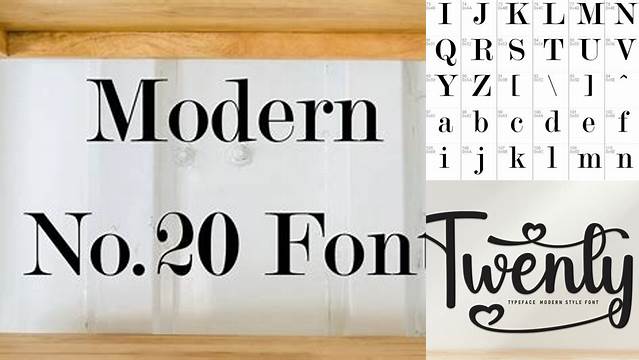
Modern Twenty Font: Free Download & Usage Guide
Hey guys! Ever stumbled upon a font that just screams modern and chic? Well, let me introduce you to the Modern Twenty Font Family. This font is a total game-changer for designers, creatives, and anyone who wants their projects to look absolutely stunning. In this guide, we're diving deep into everything you need to know about the Modern Twenty Font Family, including where to snag it for free, how to use it, and why it's the perfect addition to your font library. So, buckle up and let's get started!
What Makes Modern Twenty Font Family Special?
The Modern Twenty Font Family isn't just another font; it's a versatile collection that can elevate any design. Its clean lines and contemporary feel make it ideal for a wide range of applications, from branding and logos to websites and print materials. The font family typically includes various weights and styles, giving you the flexibility to create visually appealing and cohesive designs. Seriously, the subtle nuances in each weight—from light and regular to bold and italic—provide a spectrum of options to match your project’s tone and purpose. This font family is like the Swiss Army knife of typography – always ready to deliver!
Using Modern Twenty Font Family in Graphic Design Projects
The Modern Twenty Font Family is a fantastic choice for a wide array of graphic design projects. Its clean, modern aesthetic makes it perfect for logos, branding materials, and website design. When using Modern Twenty in your designs, consider its different weights and styles to create visual hierarchy. Use the bold weight for headings to grab attention, and the regular weight for body text to ensure readability. Experiment with different font sizes and spacing to achieve the desired effect. Pair Modern Twenty with complementary fonts to add depth and interest to your designs. For example, you might combine Modern Twenty with a classic serif font for a sophisticated look. With a bit of creativity, you can leverage the versatility of Modern Twenty to create stunning and impactful designs.
Optimizing Your Designs with Modern Twenty Font Family
To truly maximize the impact of the Modern Twenty Font Family in your designs, optimization is key. Start by paying close attention to kerning and tracking – these subtle adjustments can significantly improve the readability and visual appeal of your text. Kerning refers to the spacing between individual letters, while tracking adjusts the spacing uniformly across a range of characters. Use design software like Adobe Illustrator or Adobe InDesign to fine-tune these settings. Also, consider the color palette of your design. Modern Twenty works well with both bold and minimalist color schemes. Experiment with different color combinations to find what best complements the font's modern aesthetic. Don't be afraid to play around with shadows and gradients to add depth and dimension to your typography. With careful optimization, you can elevate your designs to a whole new level.
Modern Twenty Font Family for Logos and Branding
If you're looking to create a modern and memorable logo, the Modern Twenty Font Family is an excellent choice. Its clean lines and contemporary feel make it perfect for representing a wide range of brands, from tech startups to fashion boutiques. When designing a logo with Modern Twenty, keep simplicity in mind. A minimalist approach can often be the most effective. Use the font's different weights and styles to create contrast and visual interest. For example, you might use the bold weight for the company name and the light weight for the tagline. Also, consider the overall shape and structure of your logo. Experiment with different arrangements of the text and graphic elements to find the most visually appealing composition. Remember, a well-designed logo should be both aesthetically pleasing and easily recognizable. With Modern Twenty, you can create a logo that stands the test of time.
Using Modern Twenty Font Family in Web Design
In the realm of web design, the Modern Twenty Font Family can be a game-changer. Its clean and legible design makes it ideal for websites that aim to convey a sense of modernity and professionalism. When incorporating Modern Twenty into your web design, consider its readability on different devices. Use appropriate font sizes and line heights to ensure that your text is easy to read on desktops, tablets, and smartphones. Also, pay attention to the color contrast between your text and background. High contrast is essential for readability, especially for users with visual impairments. Utilize CSS to style your text and create a consistent and visually appealing user experience. With Modern Twenty, you can create a website that not only looks great but also provides a seamless and enjoyable browsing experience.
Modern Twenty Font Family: Showcasing Your Creativity